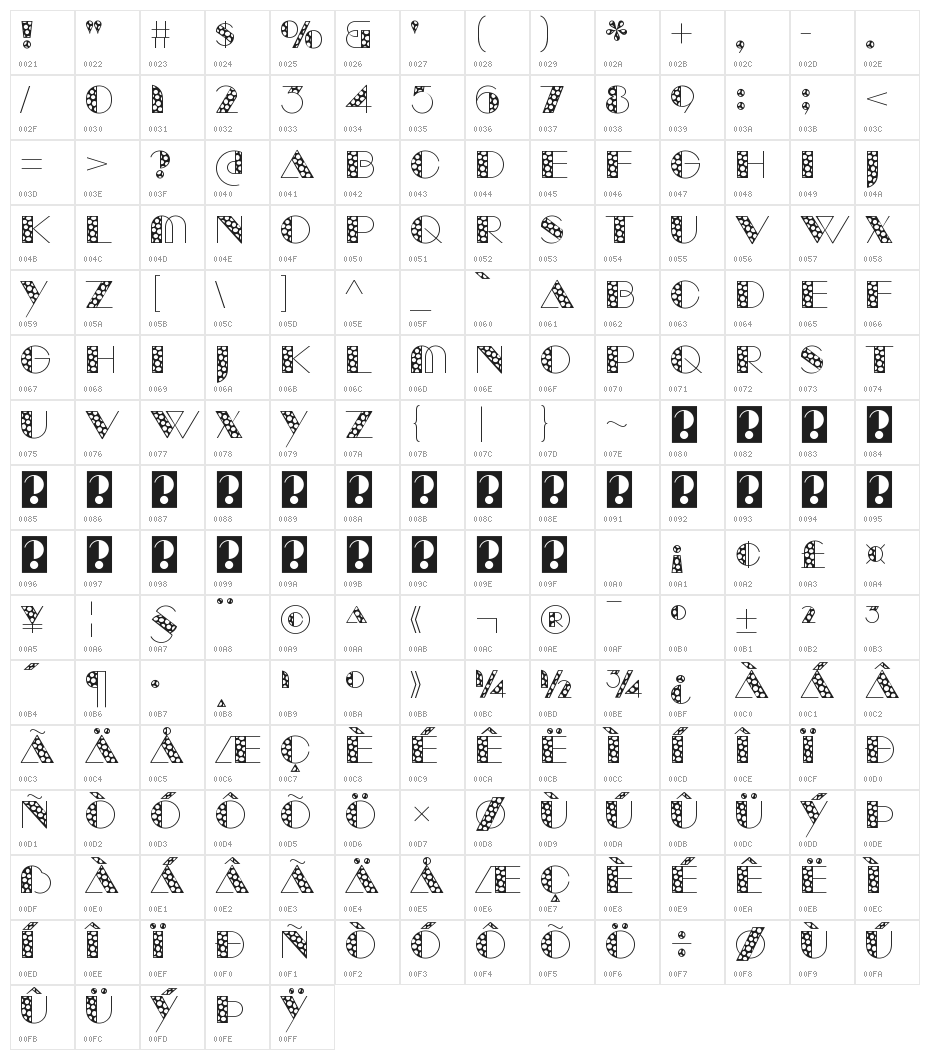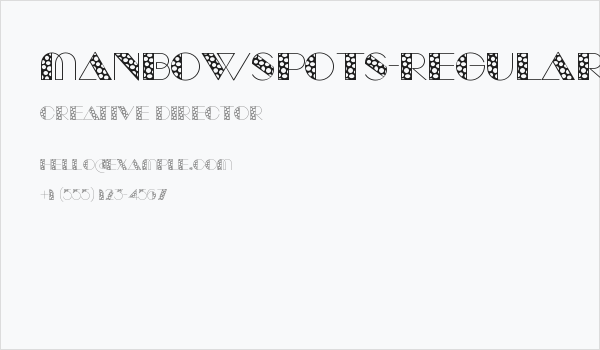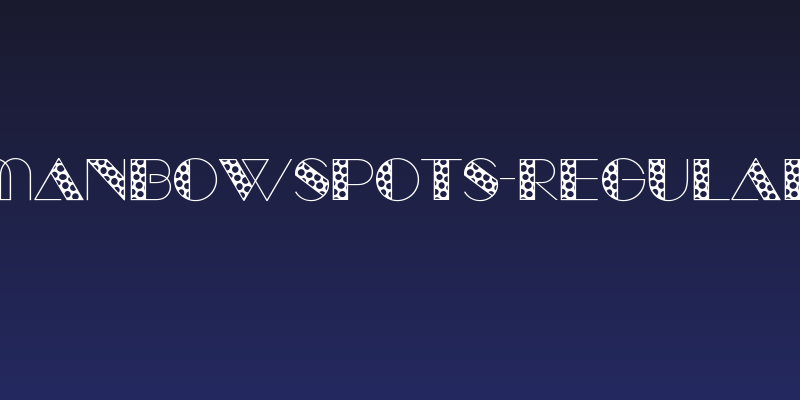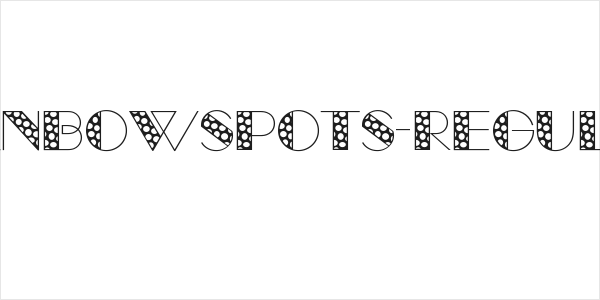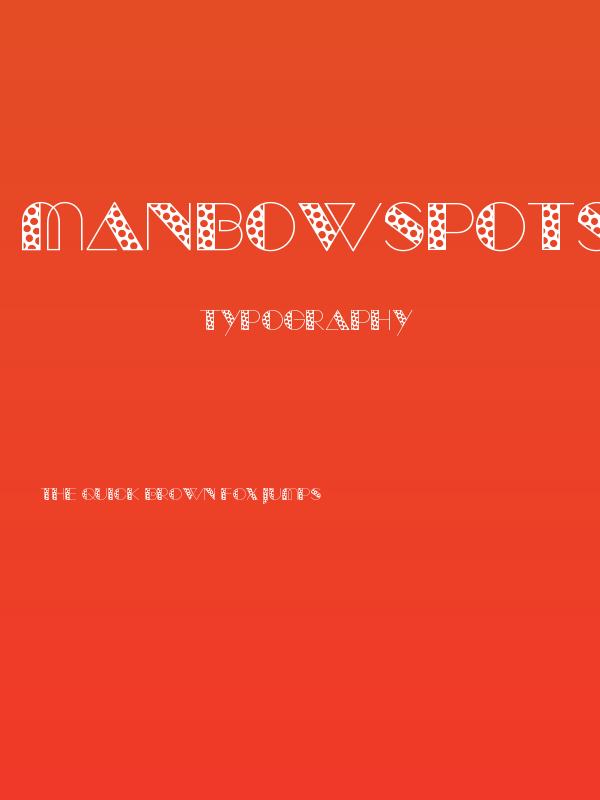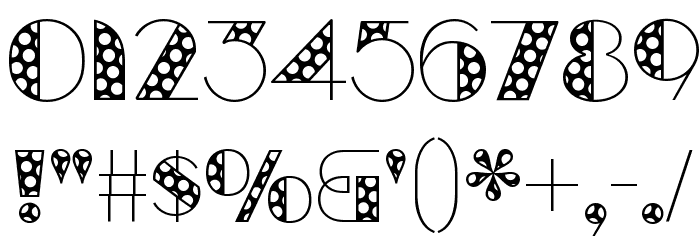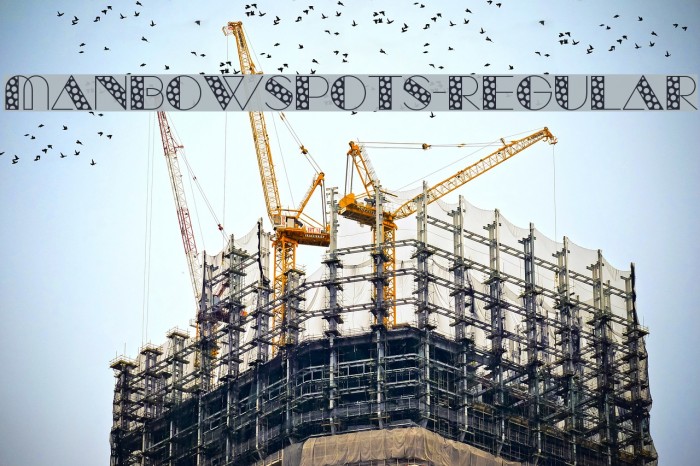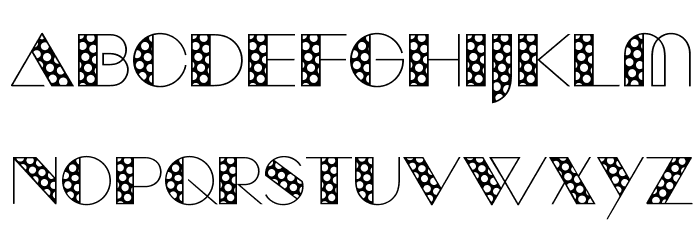
ManbowSpots-Regular Font
ManbowSpots-Regular Description
This font features a unique and playful design with a decorative style. Each character is crafted with a combination of solid lines and dotted patterns, creating a visually engaging and dynamic appearance. The uppercase and lowercase letters maintain a consistent geometric structure, while the numbers and special characters are equally adorned with the dotted motif. This font is ideal for projects that require a fun and eye-catching aesthetic, making it suitable for creative and artistic endeavors.
| Use Case | Logos, Posters, Creative Projects |
| Proposed Projects | Ideal for children's books, playful branding, creative posters, and artistic invitations. |